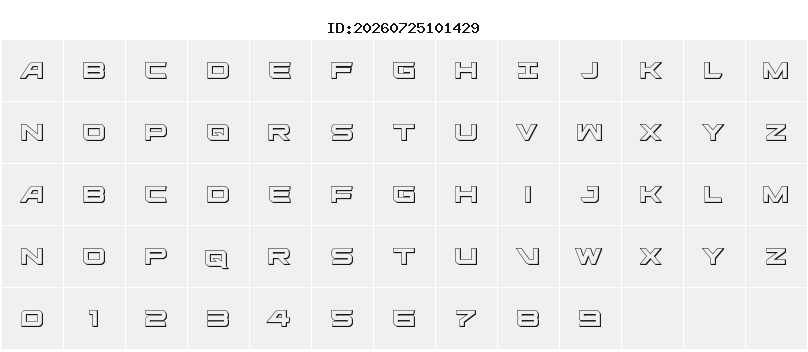
• Font Name: Ghost Clan 3D
Ghost Clan 3D.ttf is a modern, elegant sans-serif font designed for ultimate readability and visual harmony. Perfect for branding, headlines, web design, and print materials.